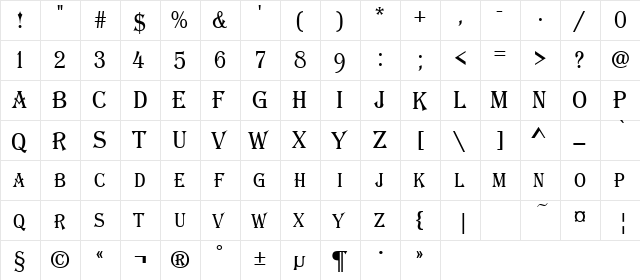
a_AlgeriusCapsNr Regular
Design Context for a_AlgeriusCapsNr Typeface
a_AlgeriusCapsNr takes a measured approach to typography — its balanced proportions and neutral character make it a reliable workhorse for both digital and print work.